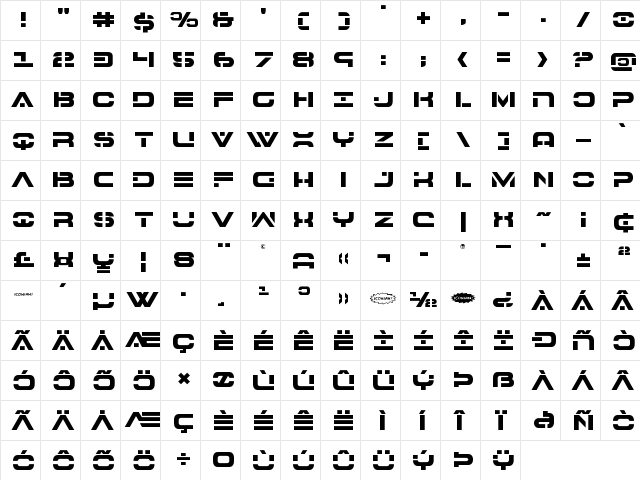
7th Service Title Regular Font Preview
7th Service Title Regular
7th Service Title Regular Font Details
Design Context for 7th Service Title Typeface
7th Service Title is a composed and adaptable typeface that performs quietly and consistently across a wide range of design contexts.